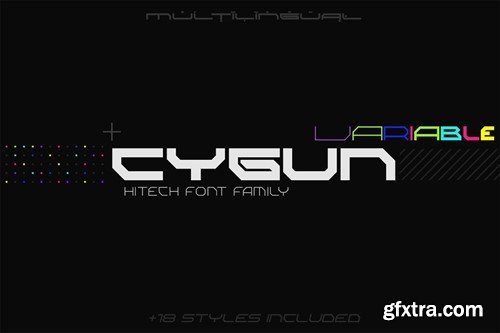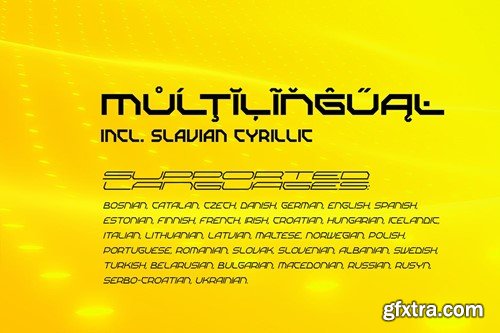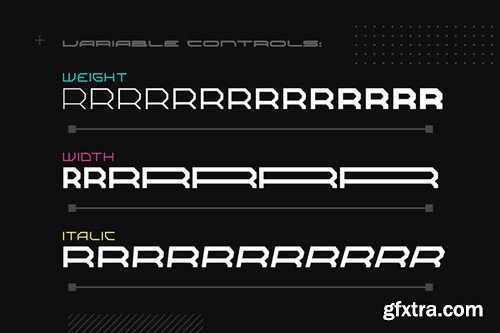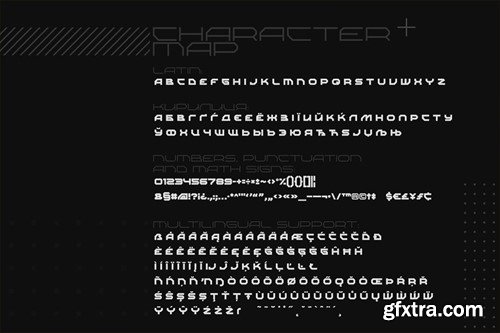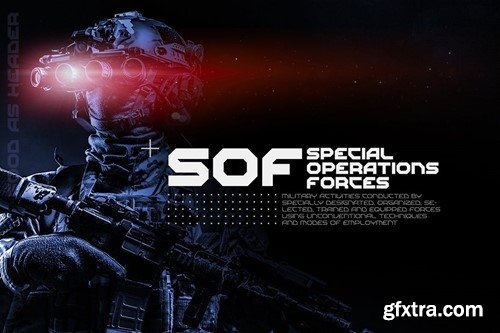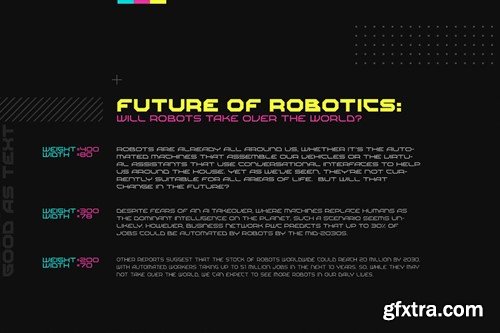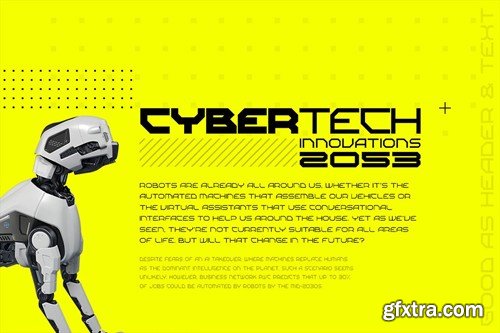
CYGUN Variable Font DHS9366
CYGUN Variable Font
CYGUN is Variable Font creates modern futuristic hi-tech atmosphere and style. Variable Controls are: Weight, Width and Italic Axis.
It is created basing on Font Family of 18 styles (Light, Bold, Condensed, Expanded etc.) which allows Cygun looks good and different as Headline and as Text both.
Use it in your projects in such areas as robots&androids, cyberpunk, hi-tech, future, virtual reality, space, army, games and many others.
Multilingual support: Bosnian, Catalan, Czech, Danish, German, English, Spanish, Estonian, Finnish, French, Irish, Croatian, Hungarian, Icelandic, Italian, Lithuanian, Latvian, Maltese, Norwegian, Polish, Portuguese, Romanian, Slovak, Slovenian, Albanian, Swedish, Turkish, Belarusian, Bulgarian, Macedonian, Russian, Rusyn, Serbo-Croatian, Ukrainian.